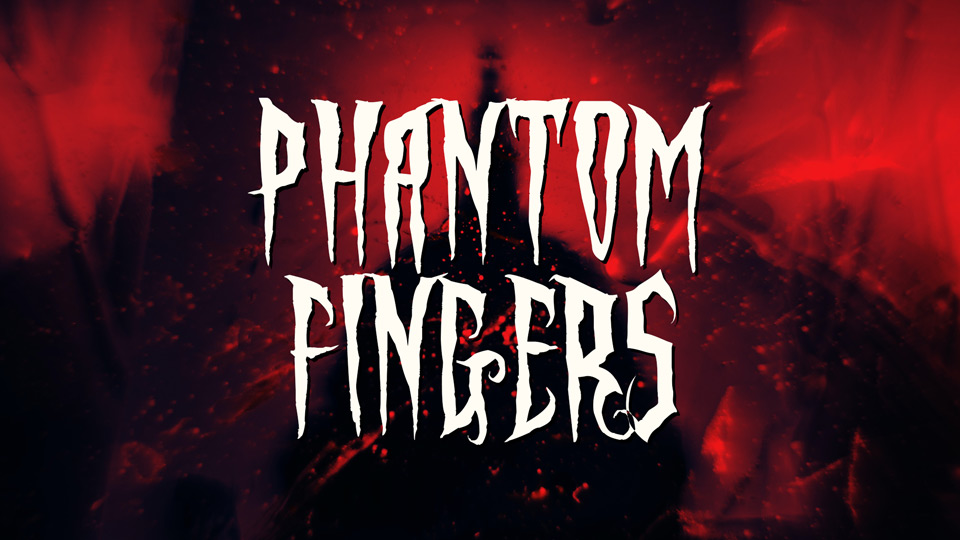
Unearth the darkest corners of typographic design with Phantom Fingers, a font that embodies the eerie elegance of Gothic horror.
Phantom Fingers font is your go-to choice when you want to convey a sense of haunting beauty and eerie mystique in your designs. Whether you’re designing ominous gothic novels, spooky Halloween materials, or cryptic merchandise, this font infuses an aura of dread and fascination into every letter, immersing your audience in a world of creepy suspense and dark allure.